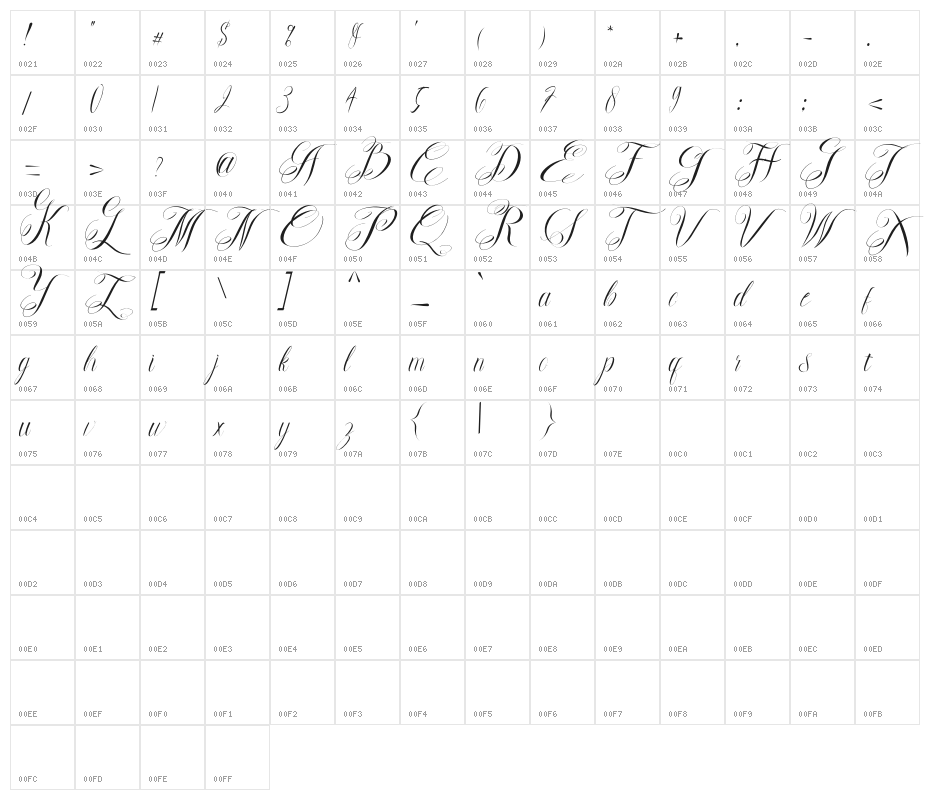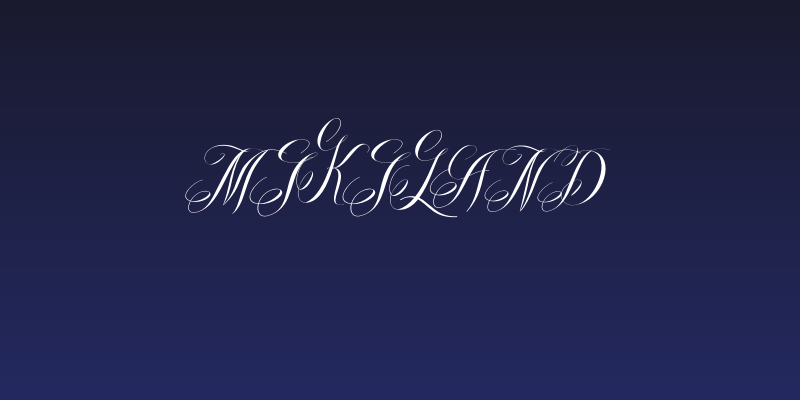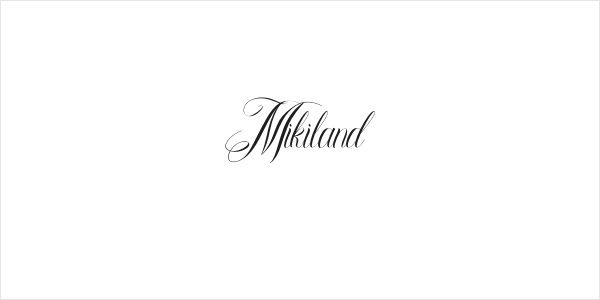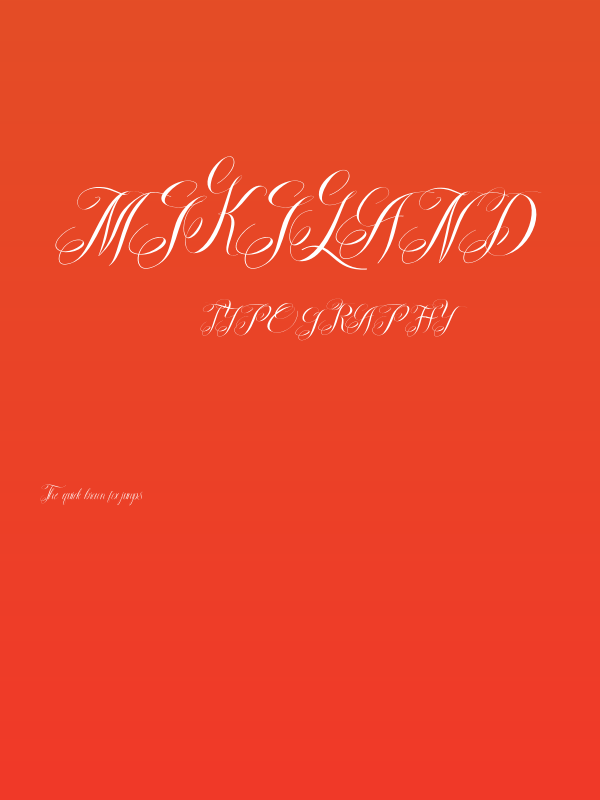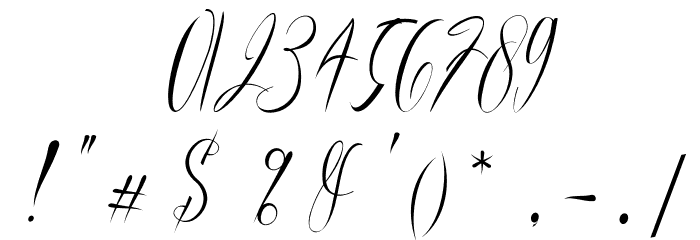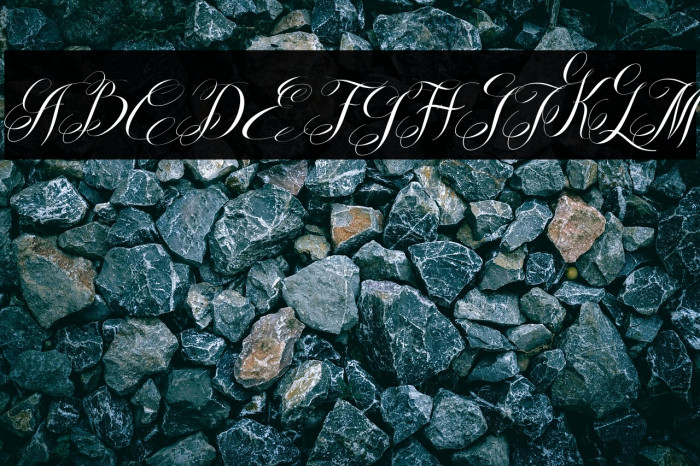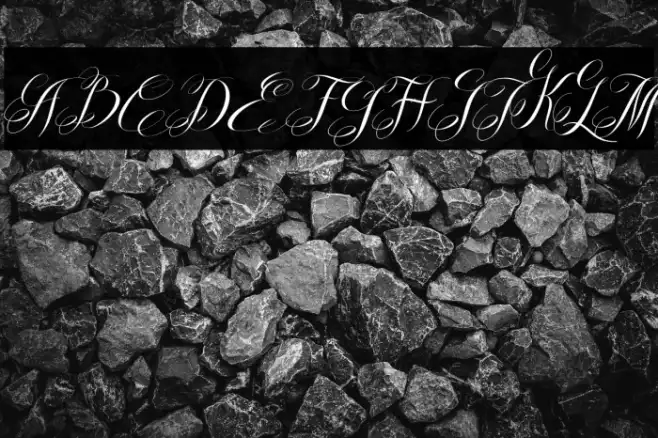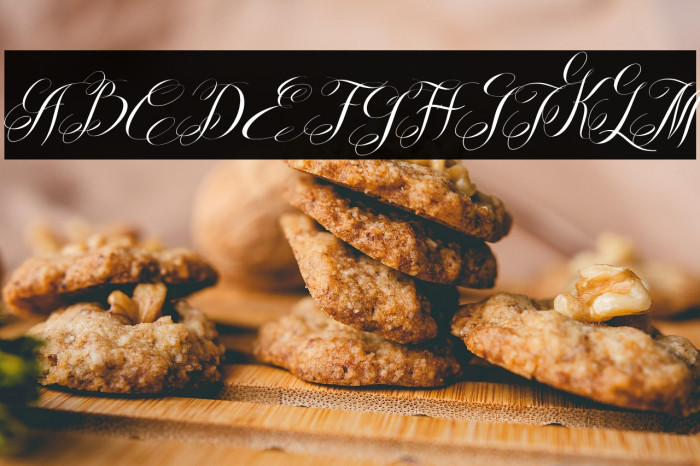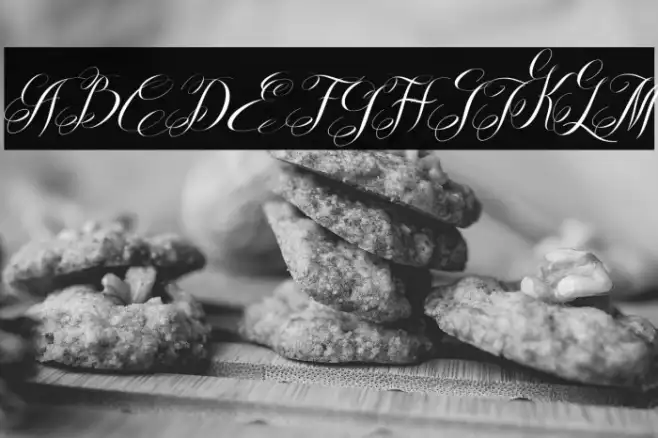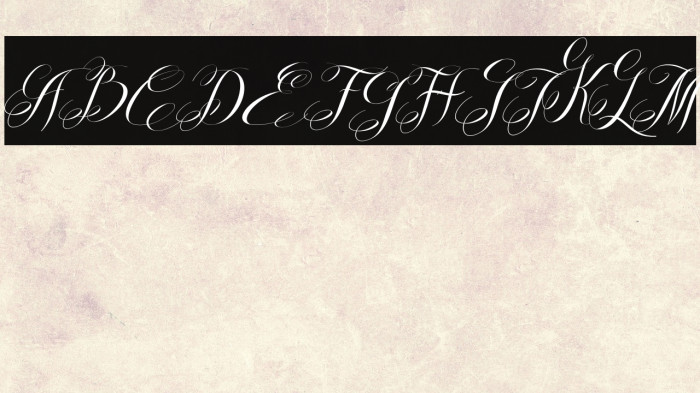
Mikiland Font
Mikiland Description
This font is an elegant and sophisticated script typeface characterized by its flowing, cursive style. The letters are intricately designed with elaborate swashes and loops, giving it a luxurious and artistic appearance. The uppercase letters are particularly ornate, with extended flourishes that add a touch of grandeur. The lowercase letters maintain a consistent style, with smooth transitions and a graceful flow. The numerals and special characters are equally stylized, ensuring a cohesive look across all text. This font is ideal for projects that require a touch of elegance and refinement, such as wedding invitations, high-end branding, or artistic designs.
| Proposed Projects | Ideal for wedding invitations, luxury branding, artistic designs, and elegant stationery. |